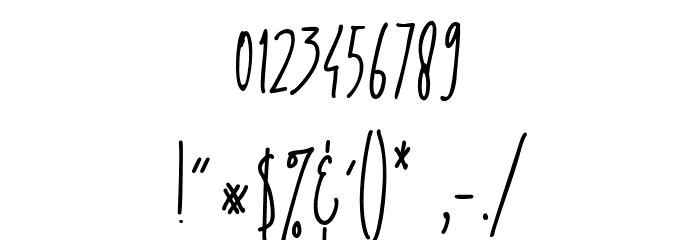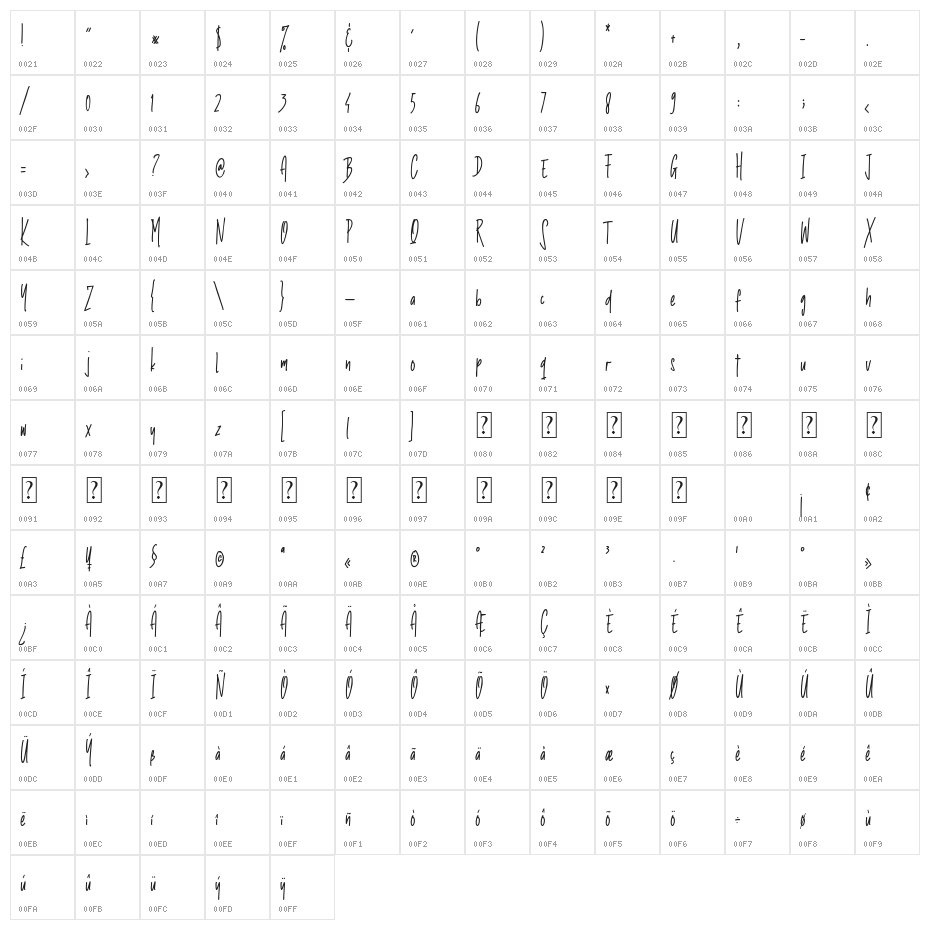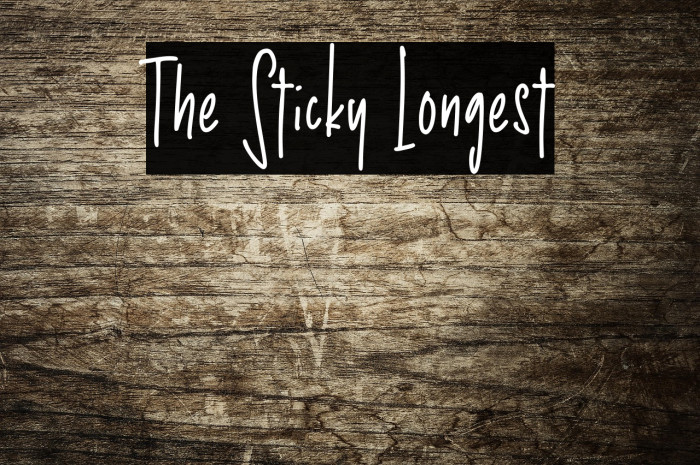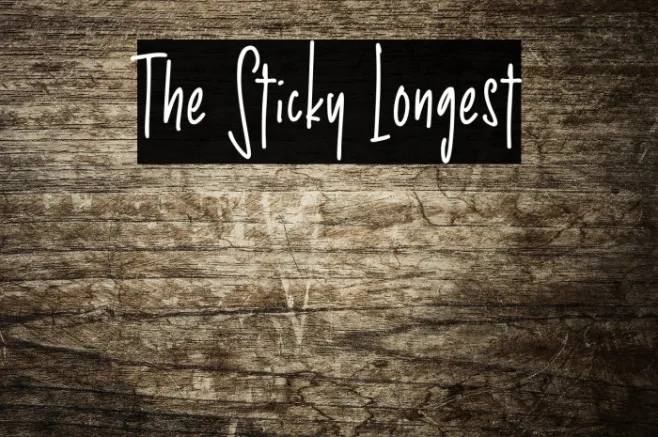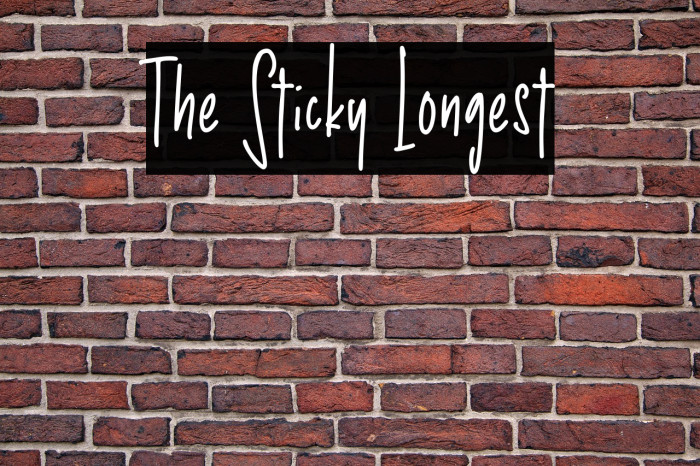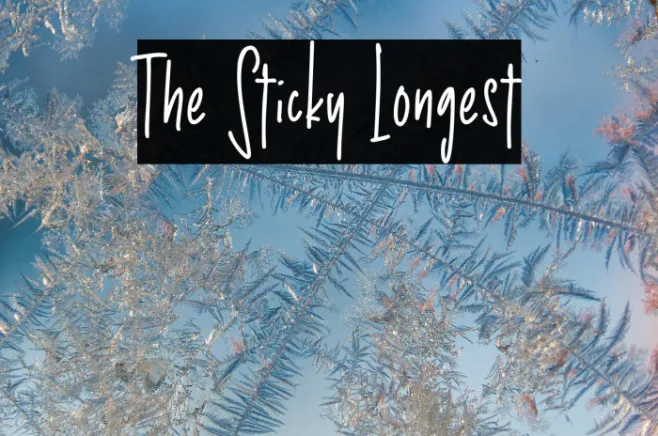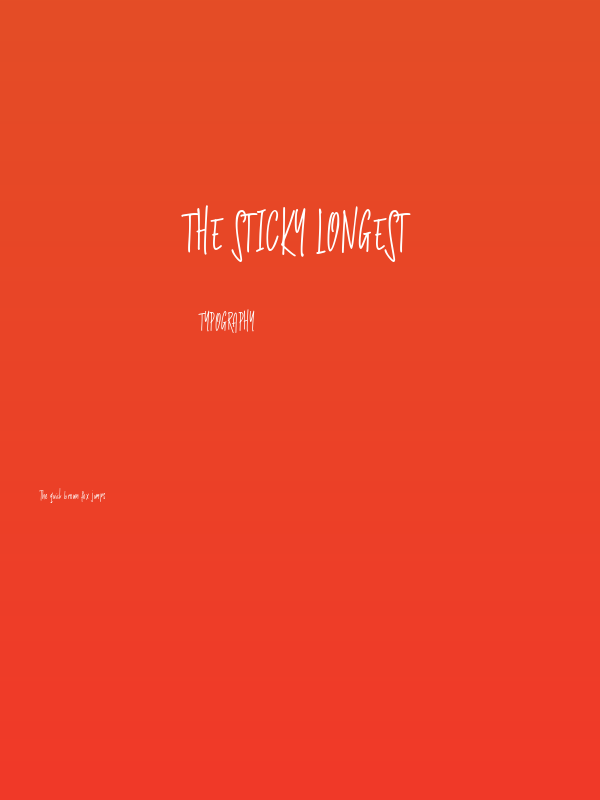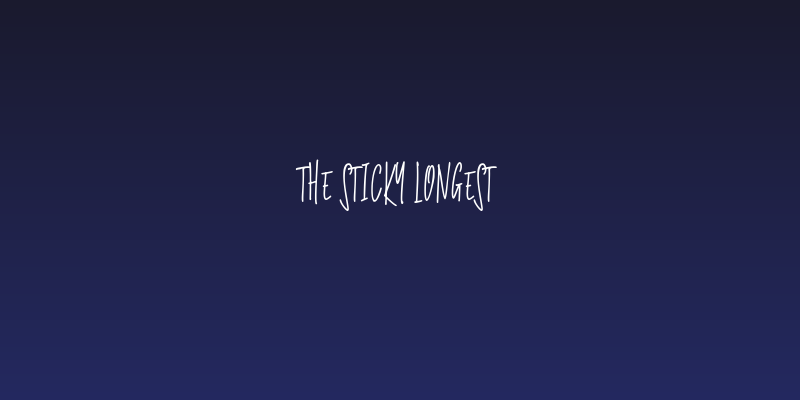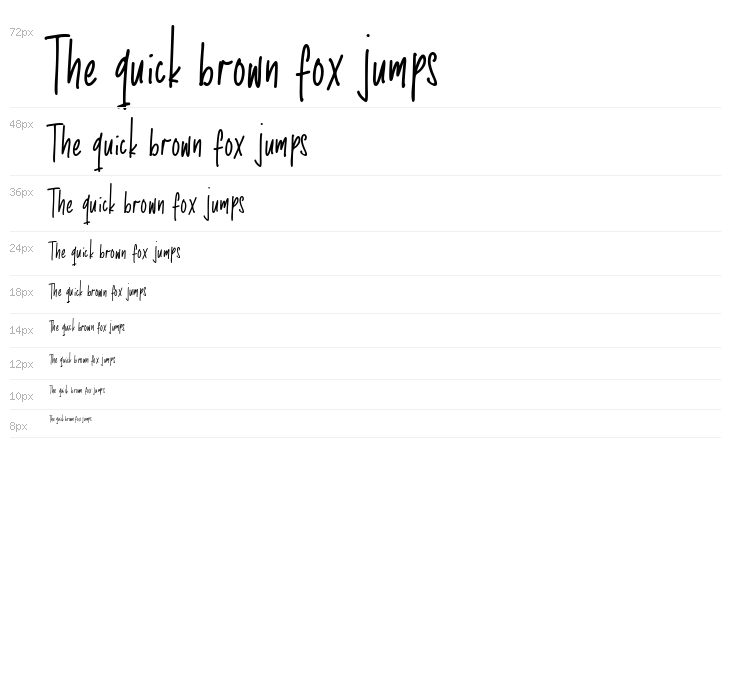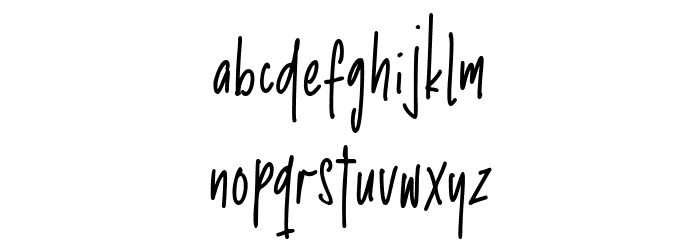
The Sticky Longest Font
The Sticky Longest Description
This font features a playful and energetic handwritten style, characterized by its tall and narrow letterforms. The strokes are uneven, adding a dynamic and informal feel. The uppercase letters are particularly elongated, while the lowercase letters maintain a consistent height, creating a harmonious balance. Numbers and special characters follow the same lively aesthetic, making the font versatile for various creative applications. The overall appearance is casual yet stylish, perfect for projects that require a personal touch.
| Proposed Projects | Ideal for greeting cards, invitations, posters, and social media graphics where a personal and informal touch is desired. |